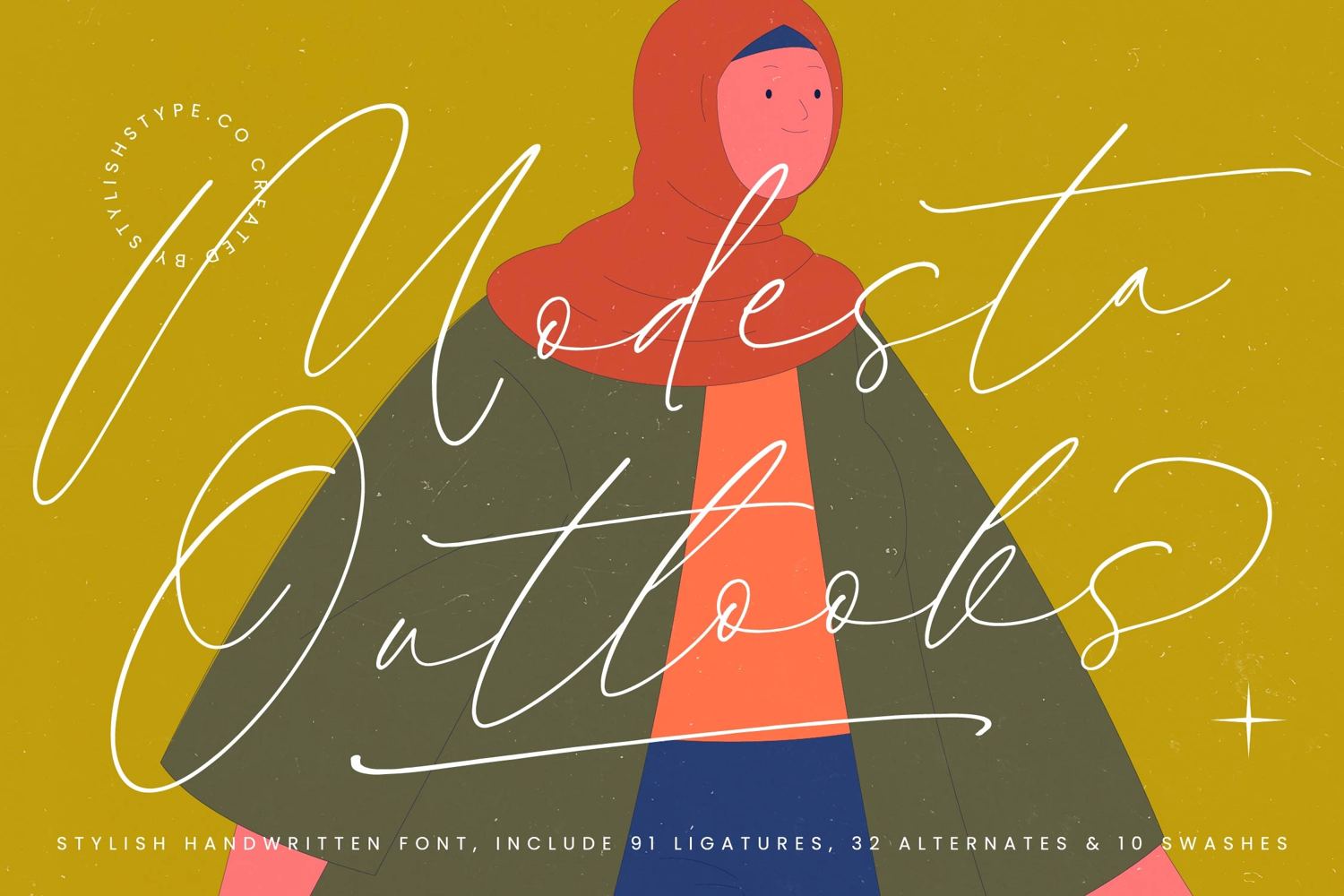
Modesta Outlook - Stylish Handwritten Font
Modesta Outlook Italic
Modesta Outlook
Modesta Outlook – Stylish Handwritten Script Font
Modesta Outlook s is a stylish handwritten script font inspired by natural handwriting and expressive signature lettering. Designed with smooth flowing strokes and elegant curves, this font delivers a modern handwritten aesthetic that feels , warm, and artistic.
The letterforms are crafted with graceful lines and long sweeping strokes that create a soft handwritten rhythm. This gives the typography a natural and authentic feel, making it perfect for designs that need personality and charm.
Modesta Outlook includes a wide range of ligatures, alternate characters, and decorative swashes, allowing designers to build beautiful and unique lettering compositions. These features provide flexibility for creating elegant logos, expressive quotes, and stylish branding.
Modesta Outlook - Stylish Handwritten Font example image 1